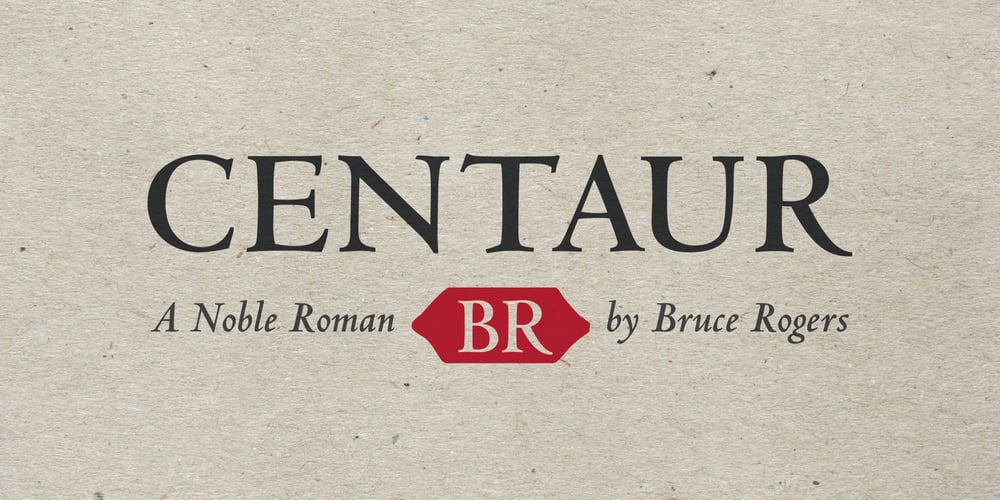
Centaur
Centaur font
Centaur Font Family was designed by Frederic Warde, Bruce Rogers and published by Monotype. Centaur contains 4 styles and family package options. A refinement of Roman inscriptional capitals designed by Bruce Rogers as a titling design for signage in the Metropolitan Museum. Rogers later designed for the Monotype Corporation a lowercase based on Jenson’s work, turning the titling into a full typeface, Centaur, the most elegant and Aldine of the Jenson derivatives.Centaur® font field guide including best practices, font pairings and alternatives.